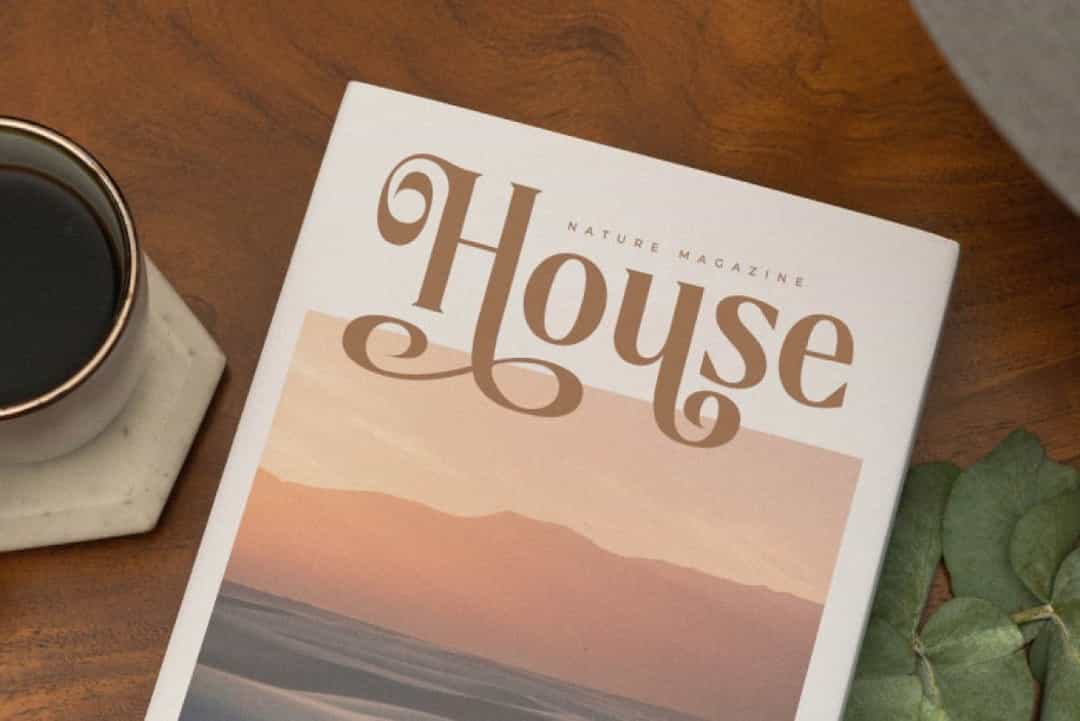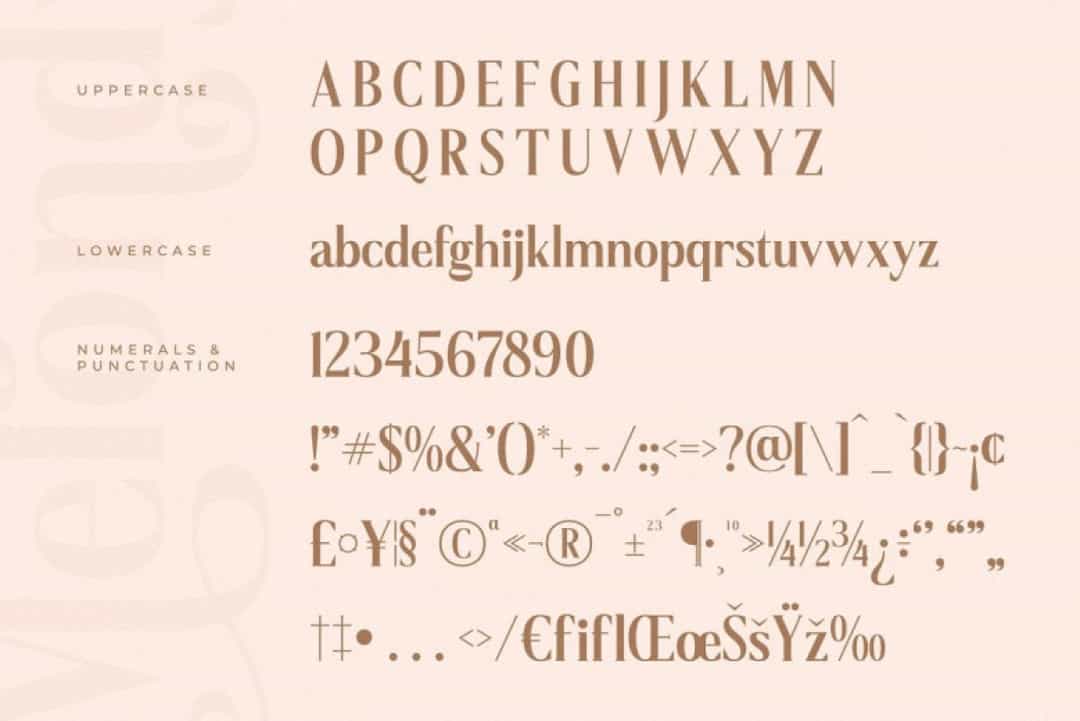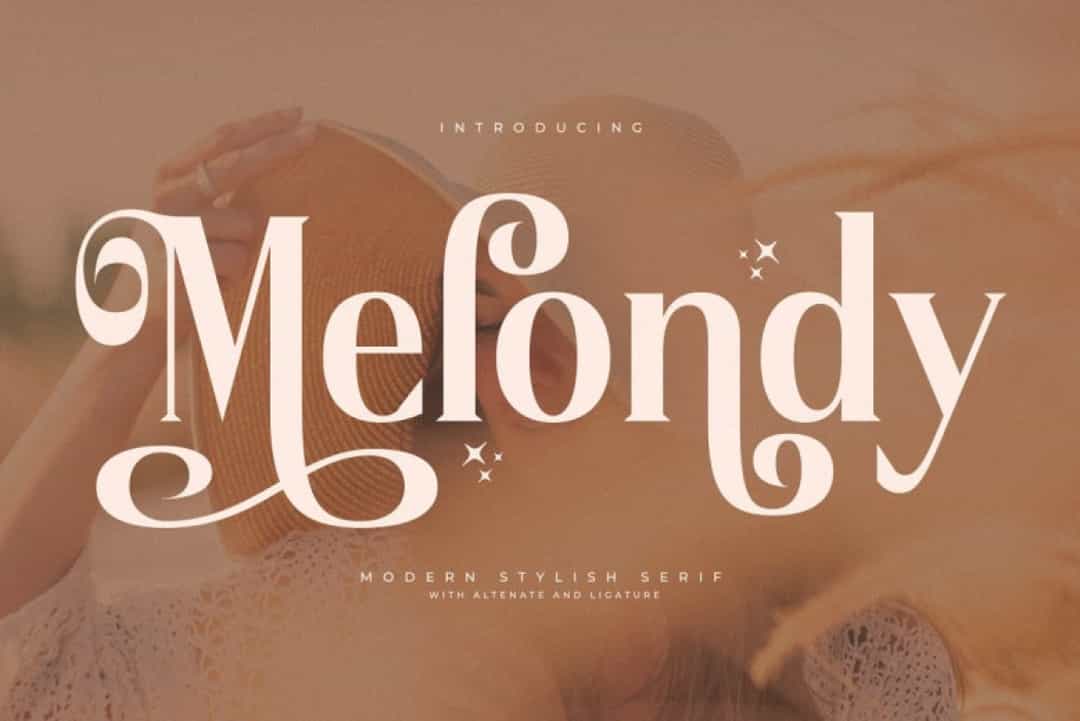
Melondy is a classic yet contemporary serif typeface distinguished by its distinct style. Ideally suited for sophisticated logos, movie and book covers magazines fashion labels letters labels labels etc. it is sure to create an eye-catching display.